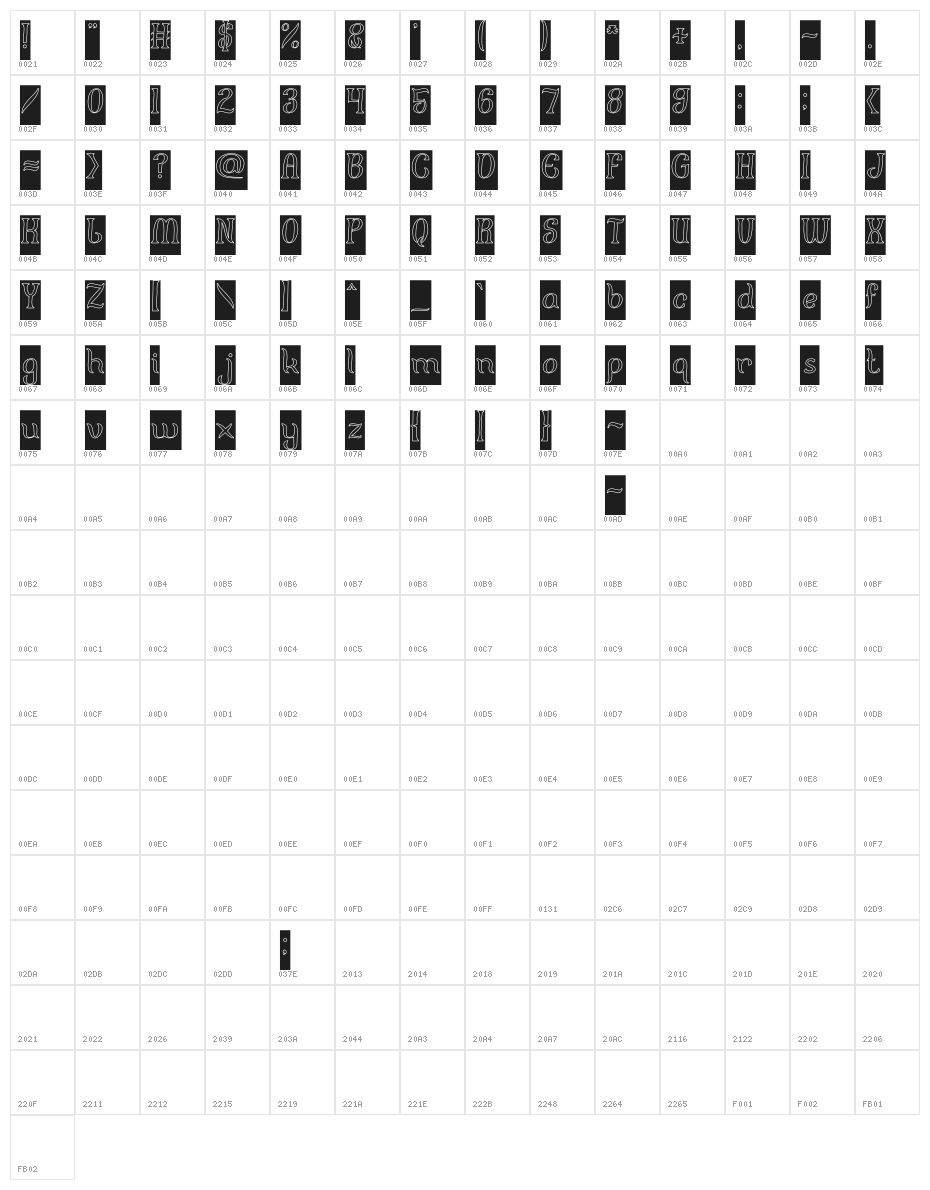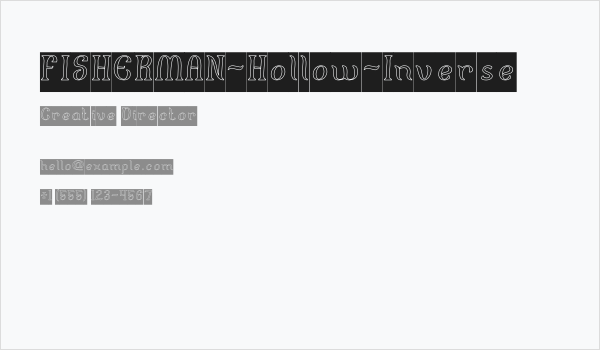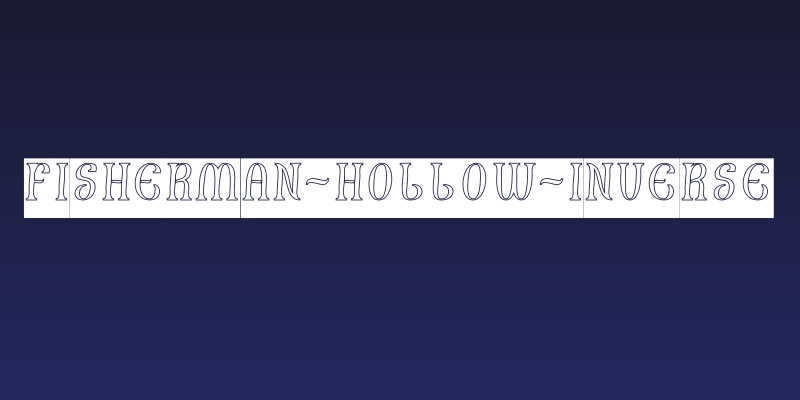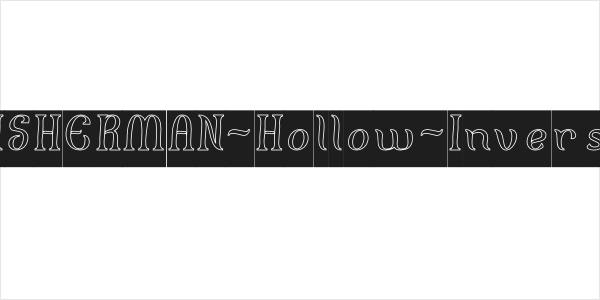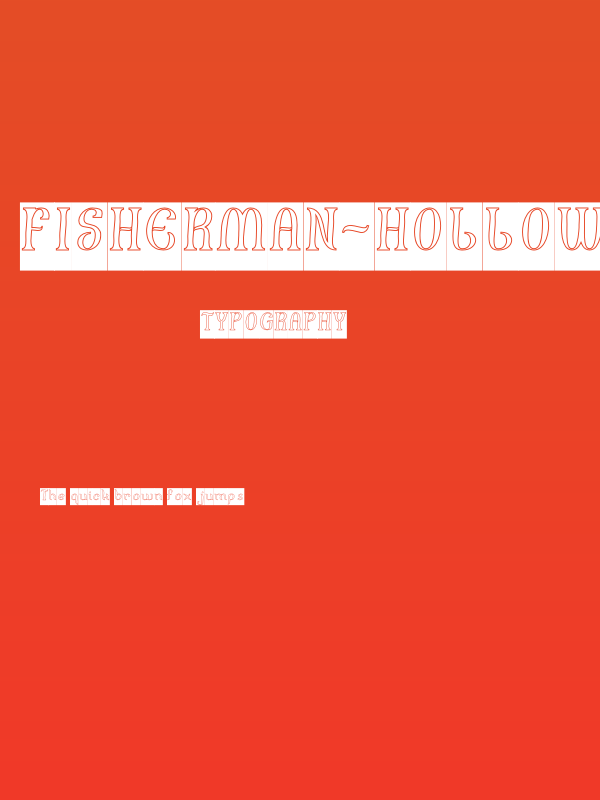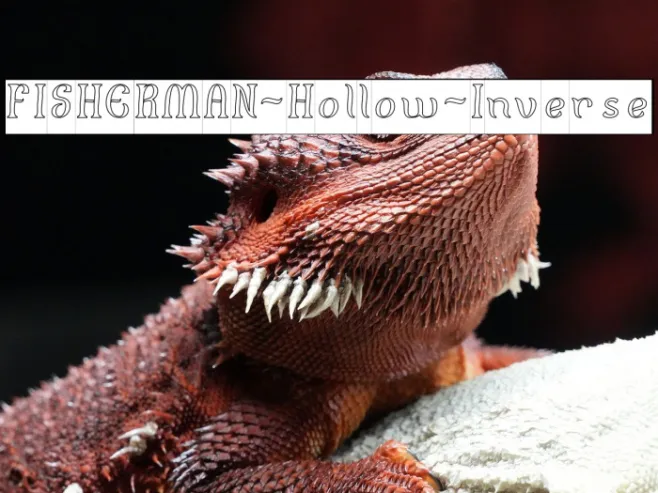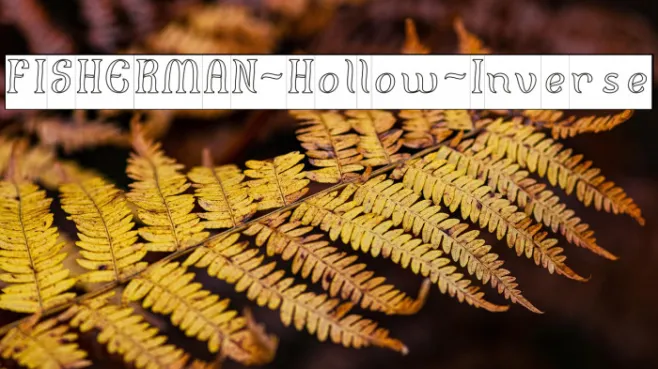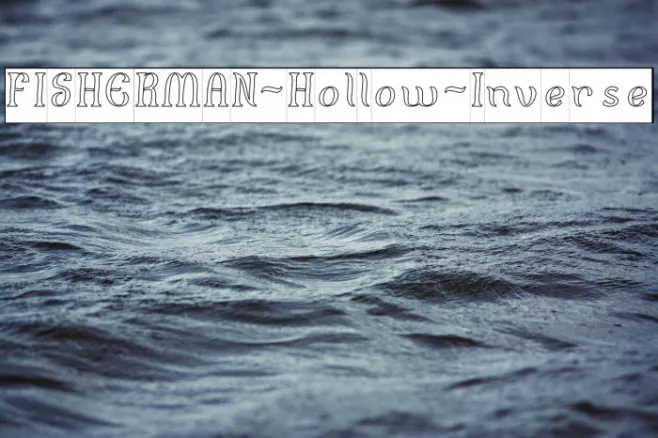
FISHERMAN-Hollow-Inverse Font
FISHERMAN-Hollow-Inverse Description
This font features a unique hollow design with an inverse style, where the strokes are outlined, creating a captivating visual effect. The uppercase letters exhibit a bold, artistic flair with curved lines and distinctive shapes, while the lowercase letters maintain a consistent style with a slightly more playful touch. The numerals are designed to match the overall aesthetic, providing a cohesive look across all characters. Special characters are included, maintaining the same hollow, outlined style. This font stands out with its decorative and artistic appeal, making it suitable for creative projects.
| Proposed Projects | Ideal for creative projects such as posters, invitations, and branding materials that require a unique and artistic touch. |